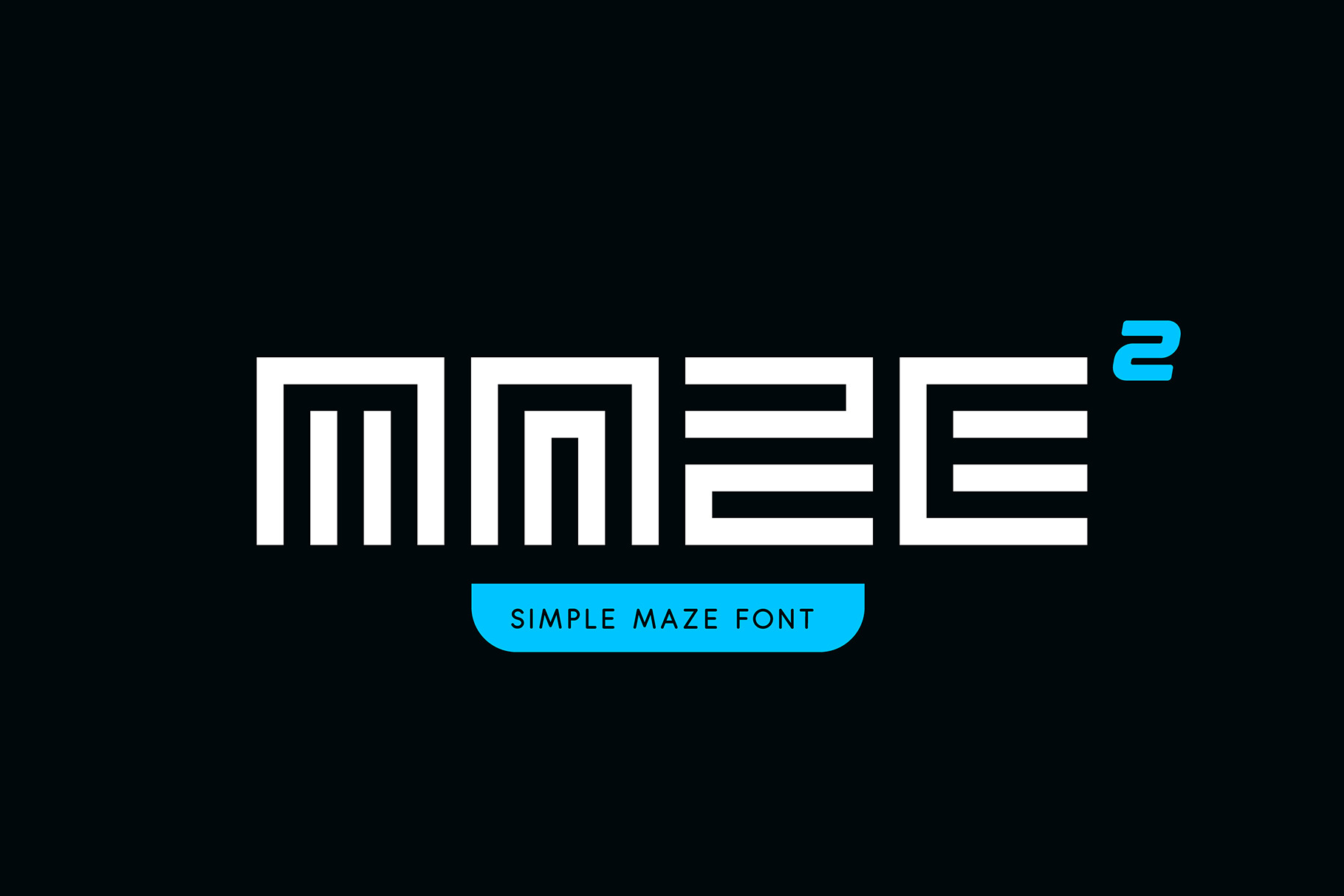
Simple Maze Font
I present to you a simplified version of my font "Maze" – "Simple Maze".
I was inspired by his creation of drawings of mazes, road junctions, and the result was really amazing, I am sure that this font will be a great addition to your font set. Try to create logos, monograms, posters and only modern stylized inscriptions using the "Maze".